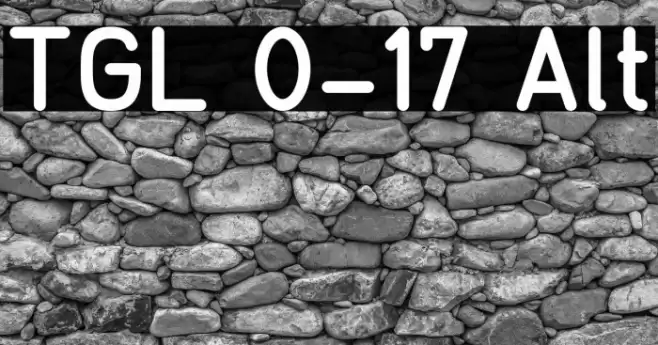
TGL 0-17 Alt Font
TGL 0-17 Alt Description
This font features a clean and modern sans-serif style with rounded edges, providing a friendly and approachable appearance. The characters are evenly spaced, contributing to excellent readability. The design is straightforward, with consistent stroke widths that give it a uniform look. The numerals and special characters are well-integrated, maintaining the overall aesthetic. This font is versatile, suitable for both digital and print media, and can be used in various contexts where clarity and simplicity are desired.
A modern, rounded sans-serif font with excellent readability from Uncategorized fonts.
- Proposed Projects: Ideal for user interfaces, websites, mobile apps, educational materials, and corporate branding.